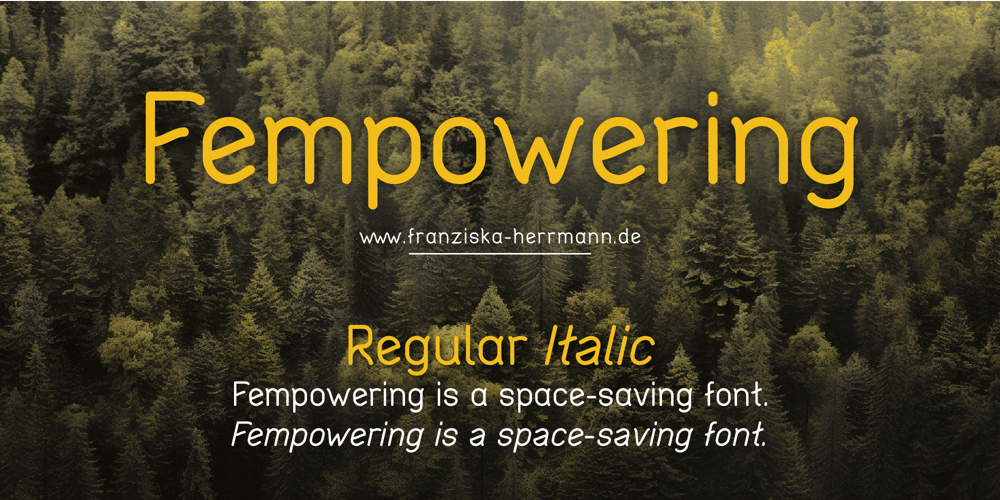
Fempowering Font Family was designed by Franziska Herrmann and published by Franziska Herrmann Sustainable graphic design. Fempowering contains 2 styles and family package options. GENDER DIVERSITYIntroducing ‘Fempowering’ – designed to champion gender diversity in typography, created by a sustainable graphic designer who recognized the need for balance in a predominantly male field.SPACE-SAVINGIn the world of typography, space is often a precious commodity. ‘Fempowering’ is designed with this in mind. Its space-saving characteristics make it an ideal choice for print materials, editorial layouts, and any project where readability within confined space is paramount.GLYPH COLLECTIONAt the core of Fempowering lies an extensive glyph collection. It goes beyond the standard characters and numbers, embracing specialized symbols, mathematical notations, and even phonetic transcription. This comprehensive assortment opens new creative avenues, enabling you to craft unique and captivating designs.Franziska Herrmann